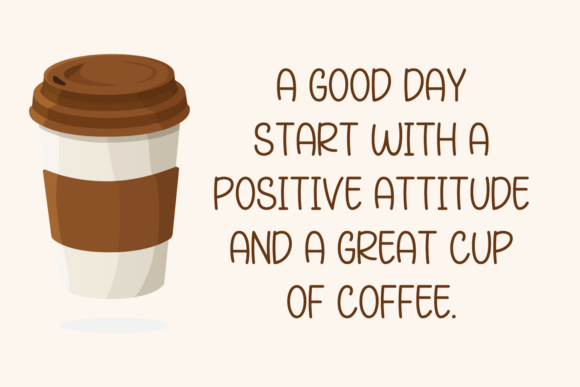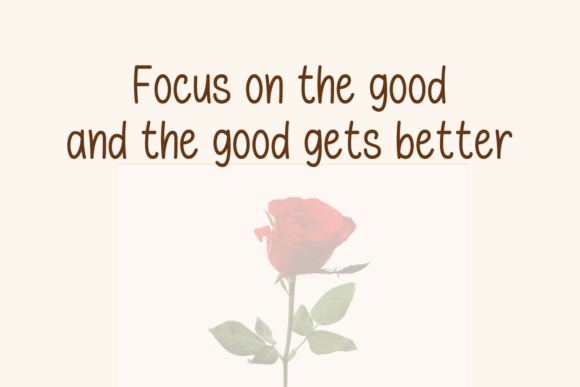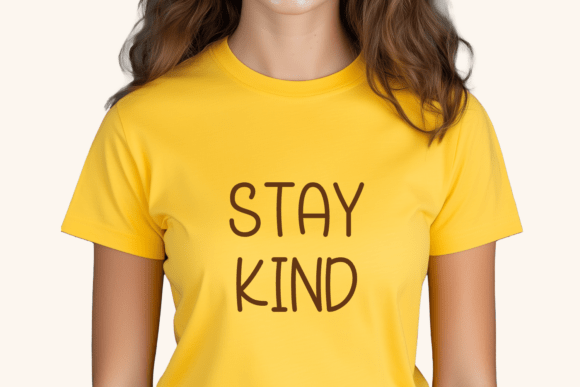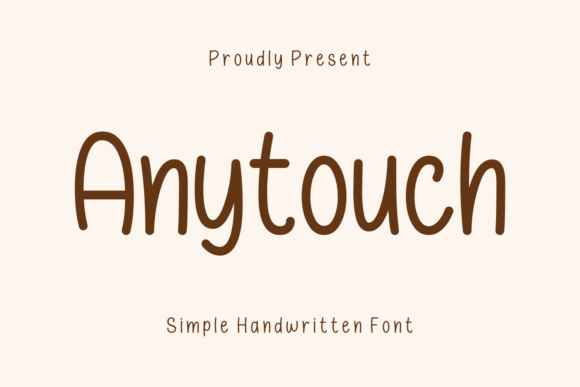
Introduction to Anytouch Font
Introducing Anytouch, an enchantingly cute handwritten typeface perfect for breathing life into your creative projects.
Imbued with an authentic, personal touch, it serves as an impeccable design font that’s ideal for enhancing your artistic endeavors Its playful charm makes it a superb choice for school-related projects, adding a unique, whimsical twist to assignments and presentations.